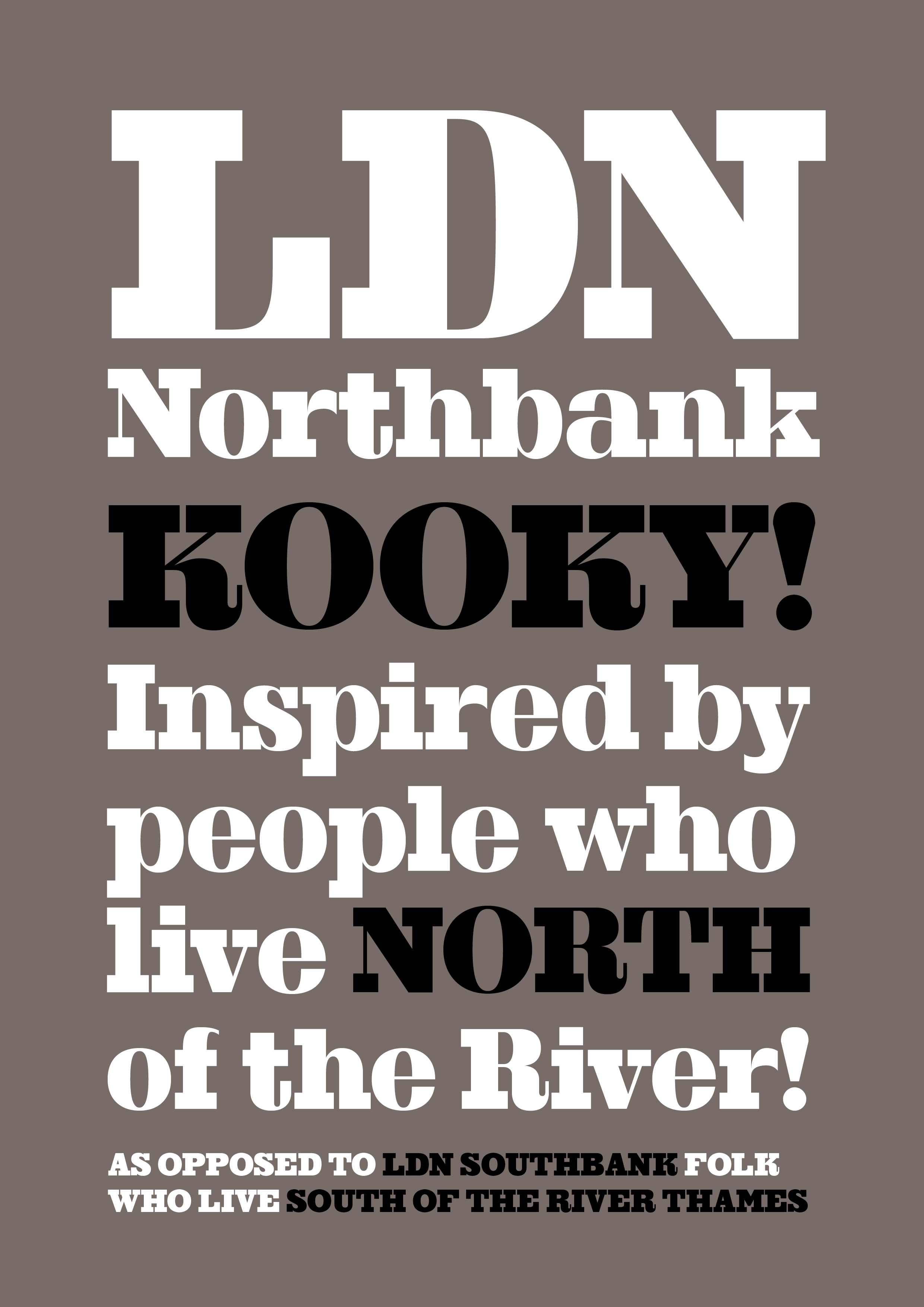
LDN Northbank
LDN Northbank is a hybrid single weight slab serif designed by Paul Harpin, one of two interlinked Egyptian style typefaces inspired by Festival of Britain era London.
Northbank is the art school cousin to the more traditional LDN Southbank, sharing the same typographic skeleton but featuring higher contrast strokes and diametrically opposing counters.
LDN Northbank
Paul was influenced by his research into the many brilliant graphic designers studying at London’s Royal College of Art in the early 1950s; mid-century modernism with a twist.
Both Northbank & Southbank pay tribute to the great designers of that time, the likes of of FHK Henrion, Gordon Cullen and especially Charles Hasler, chairman of the Typographic Panel for the 1951 Festival.